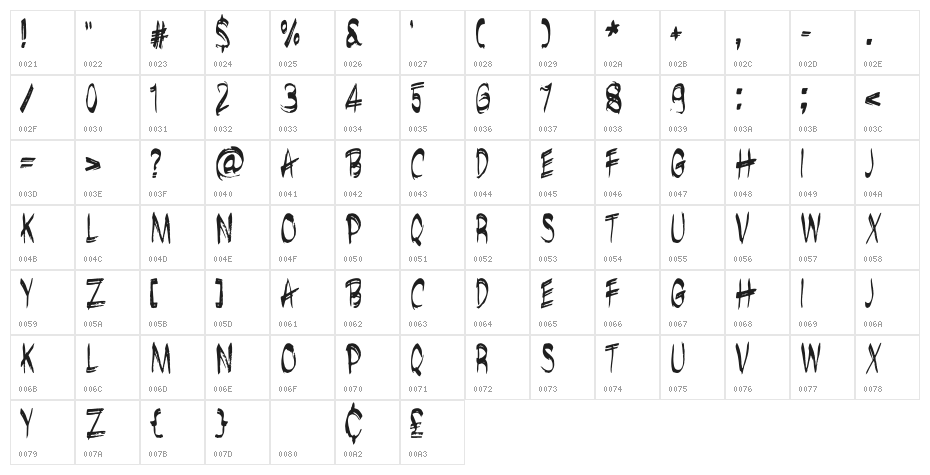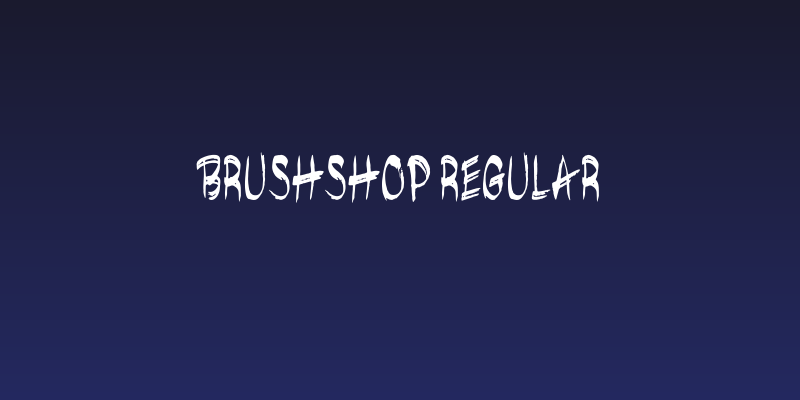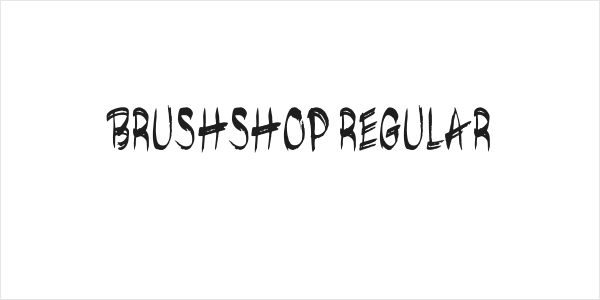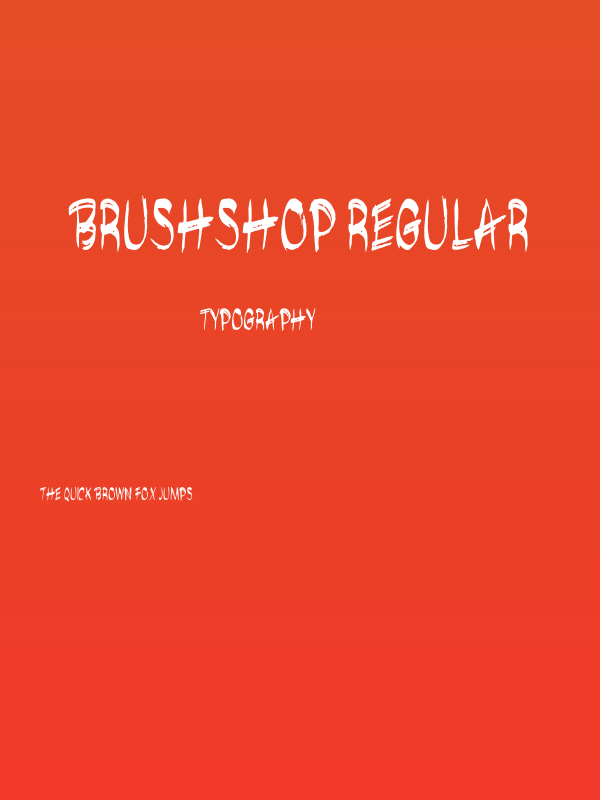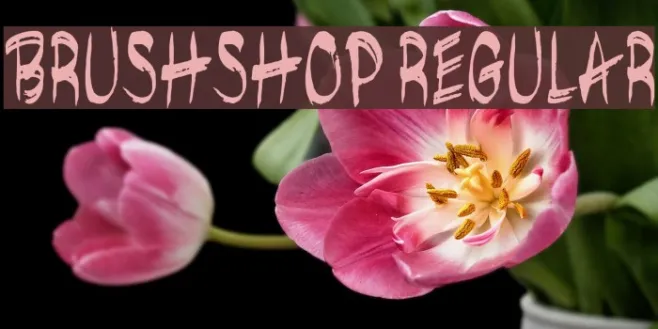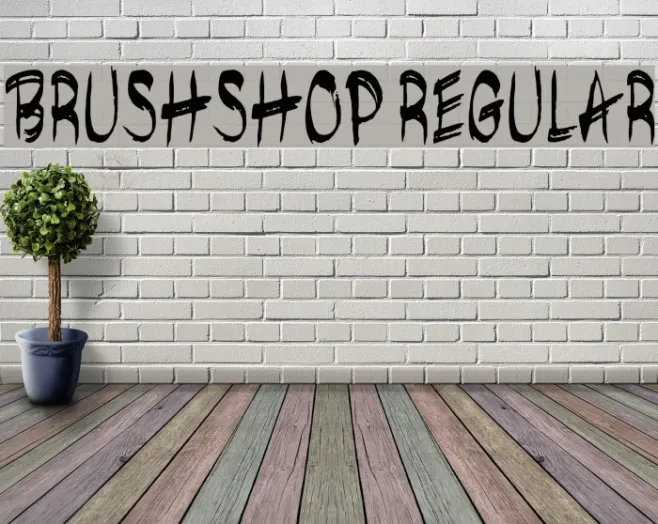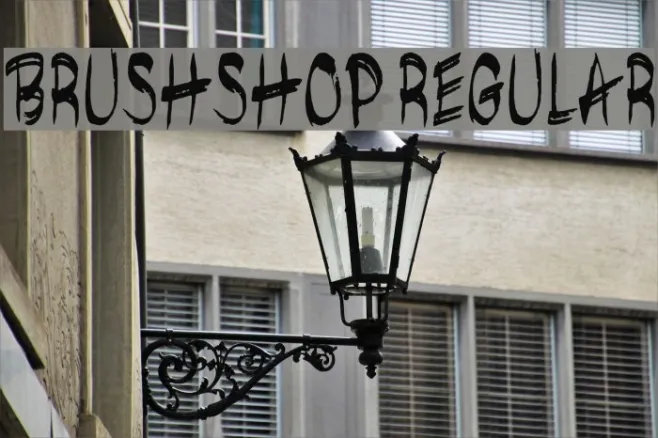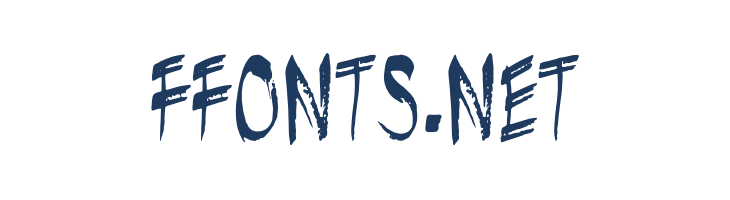
This font features a bold, expressive brush style that conveys a sense of energy and dynamism. The strokes are uneven and textured, giving it a hand-painted appearance. Each character is distinct, with varying thicknesses and a slightly irregular baseline, enhancing its artistic and informal feel. The uppercase and lowercase letters maintain a consistent style, while the numerals and special characters integrate seamlessly, offering a cohesive look. This font is ideal for projects that require a personal touch or a creative flair.
| Proposed Projects | Perfect for artistic projects, posters, branding, and any design needing a dynamic, personal touch. |